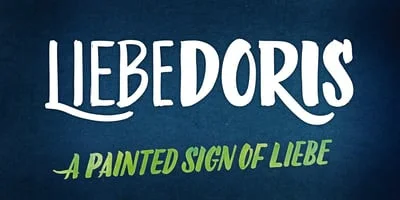
LiebeDoris Font
LiebeDoris Font is an exceptional choice for projects that demand a sense of warm charm, handcrafted authenticity, and distinctly friendly personality. It's perfectly suited for playful branding, casual invitations, children's book illustrations, whimsical packaging, and any design where you want to evoke a feeling of genuine warmth, approachable creativity, and a touch of delightful irregularity. Imagine it gracing a unique cafe's signage, adding a welcoming touch to a boutique's handmade product labels, or giving a distinctive, charming personality to a personal blog. Its organic, slightly imperfect forms and amiable character ensure your message is conveyed with both sincerity and an undeniable sense of heartfelt appeal.
What makes LiebeDoris Font so exciting is its ability to immediately infuse a design with a sense of playful innocence and an endearing, hand-drawn charm. It offers a visual statement that feels both unique and universally heartwarming, making it perfect for designs that aim to feel approachable, spirited, and genuinely memorable. This font isn't just about conveying text; it’s about creating an atmosphere of relaxed creativity, bringing a sense of spontaneous artistry and genuine character to your visuals. It's the ideal tool for designers who want their work to feel friendly, inviting, and truly stand out with a touch of charming eccentricity.
The LiebeDoris Font family typically focuses on delivering its signature playful and informal style with precision. You might find a standard Regular weight that embodies its core whimsical design, along with potential variations that enhance its handcrafted appearance, such as slight stylistic alterations or perhaps a bolder version for emphasis. These nuances ensure that LiebeDoris Font can be the cornerstone of a truly unique and powerfully thematic visual identity, helping your designs stand out with an undeniable sense of character and lighthearted authenticity.